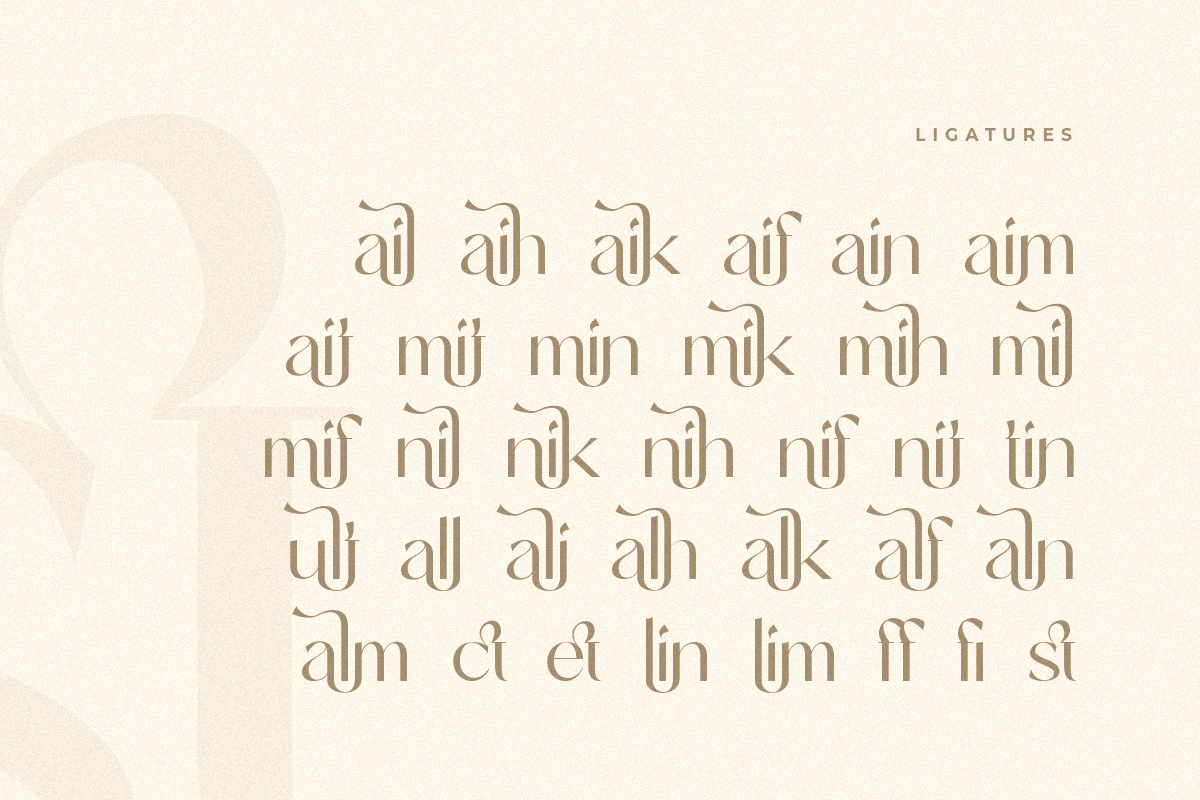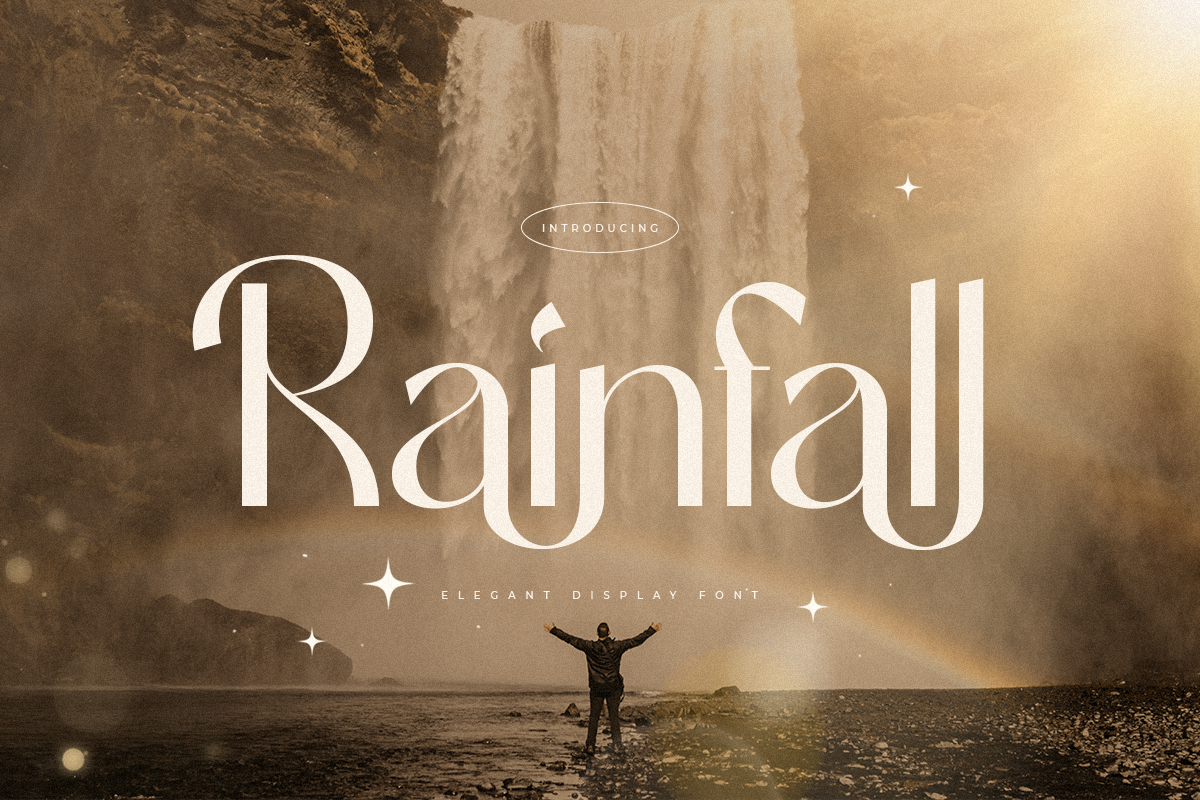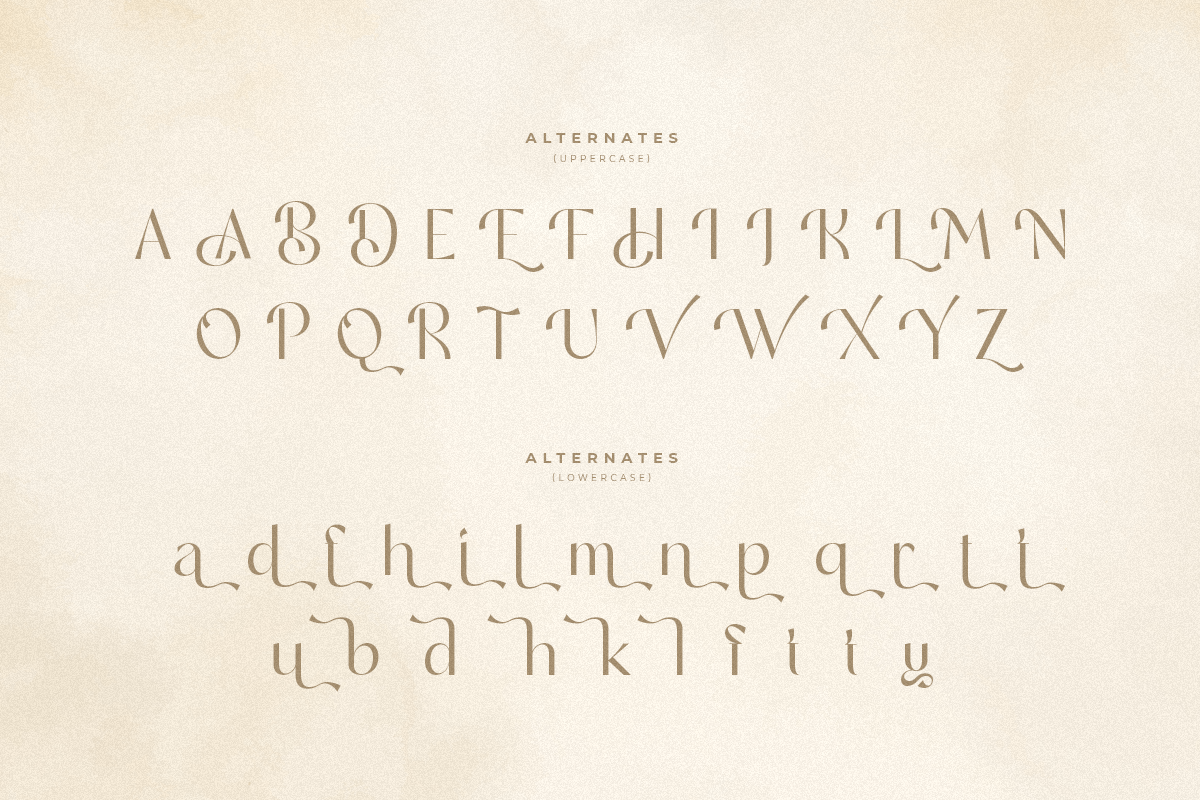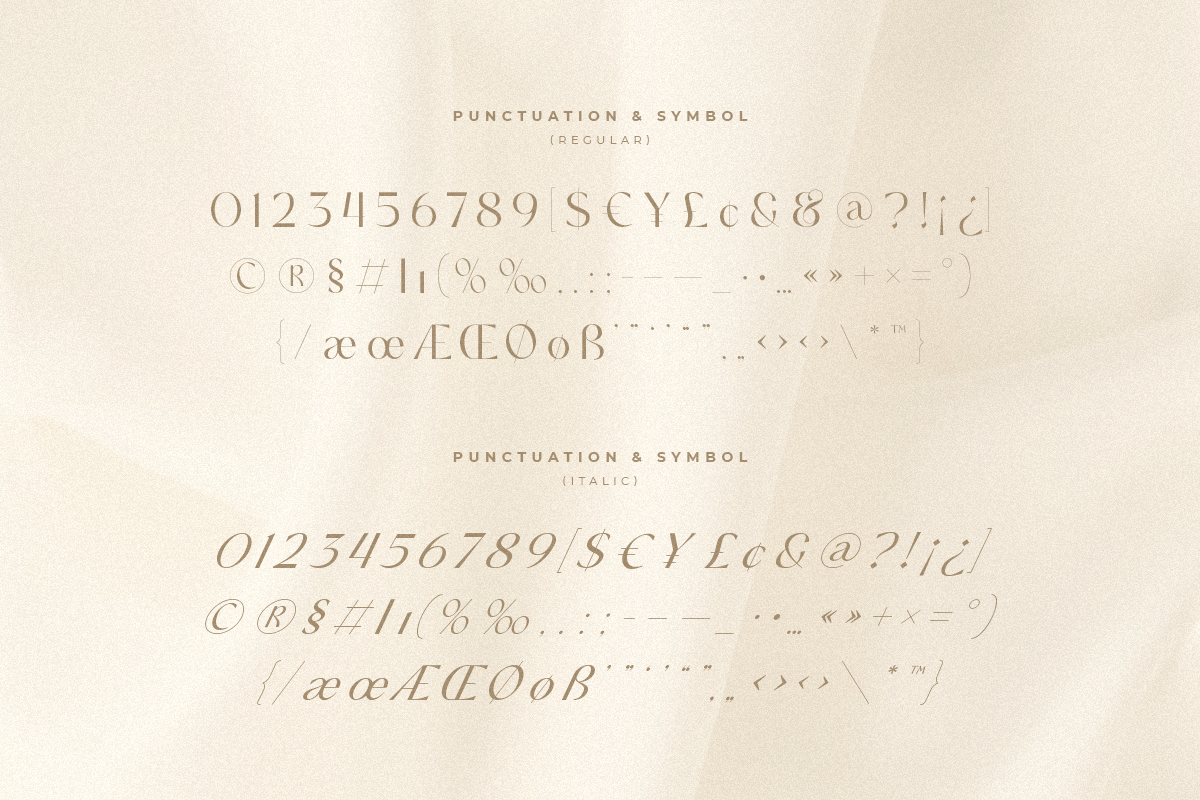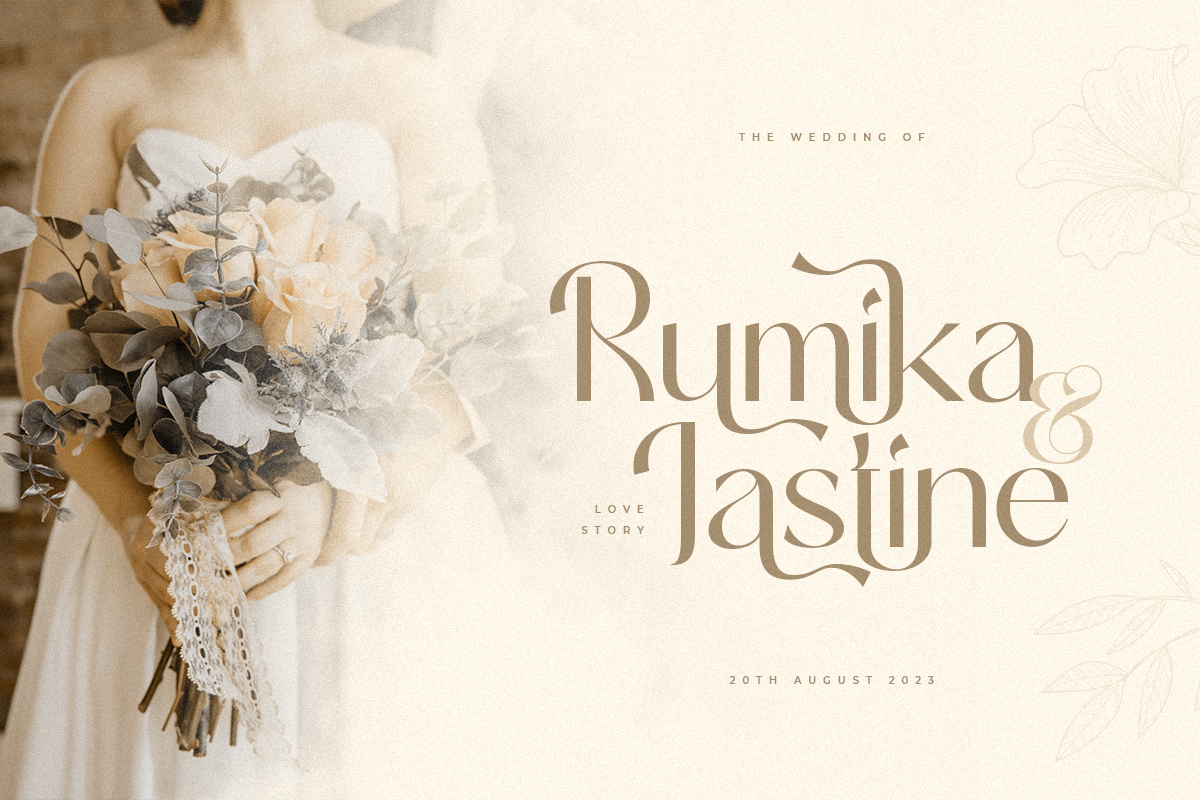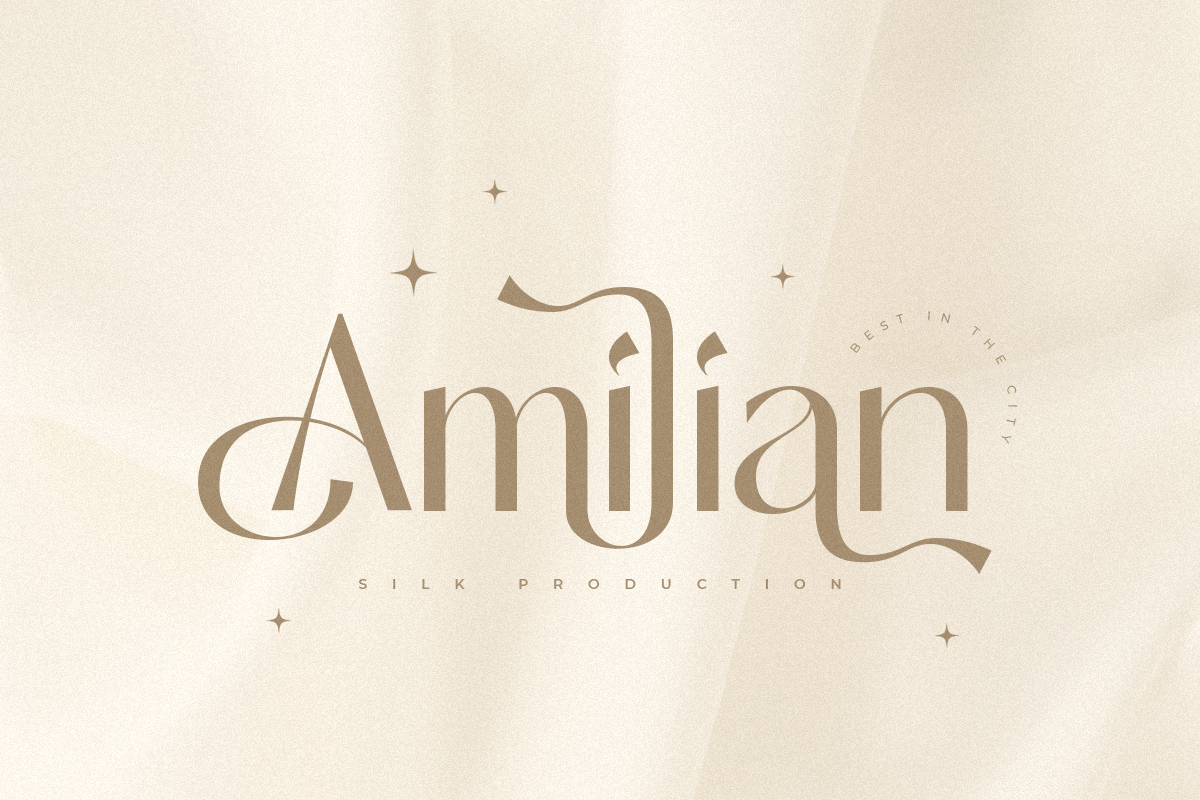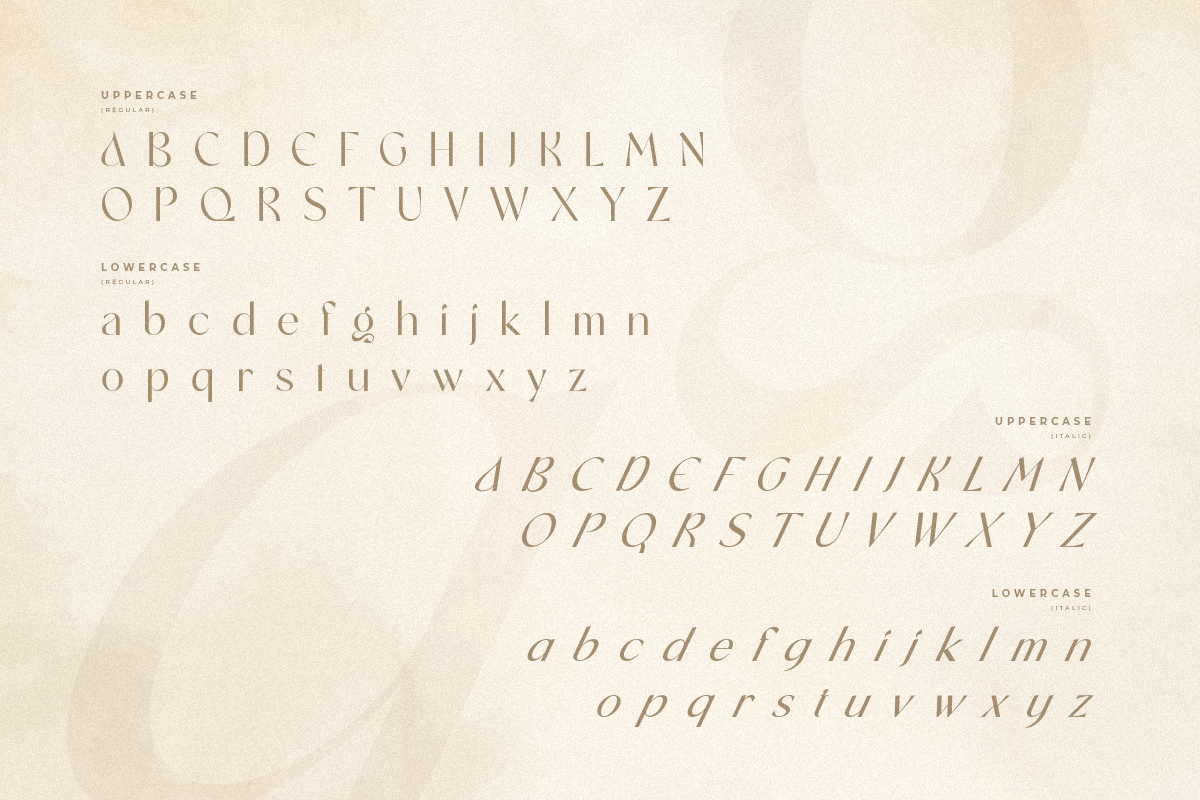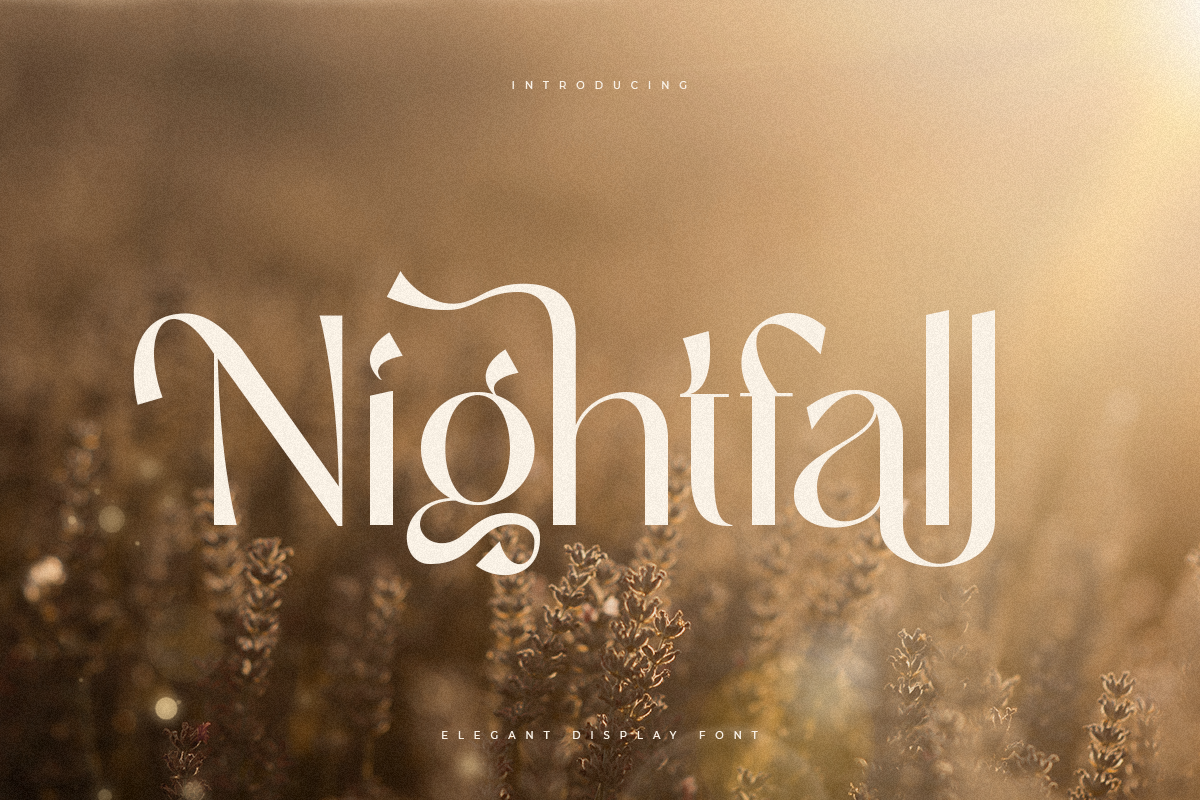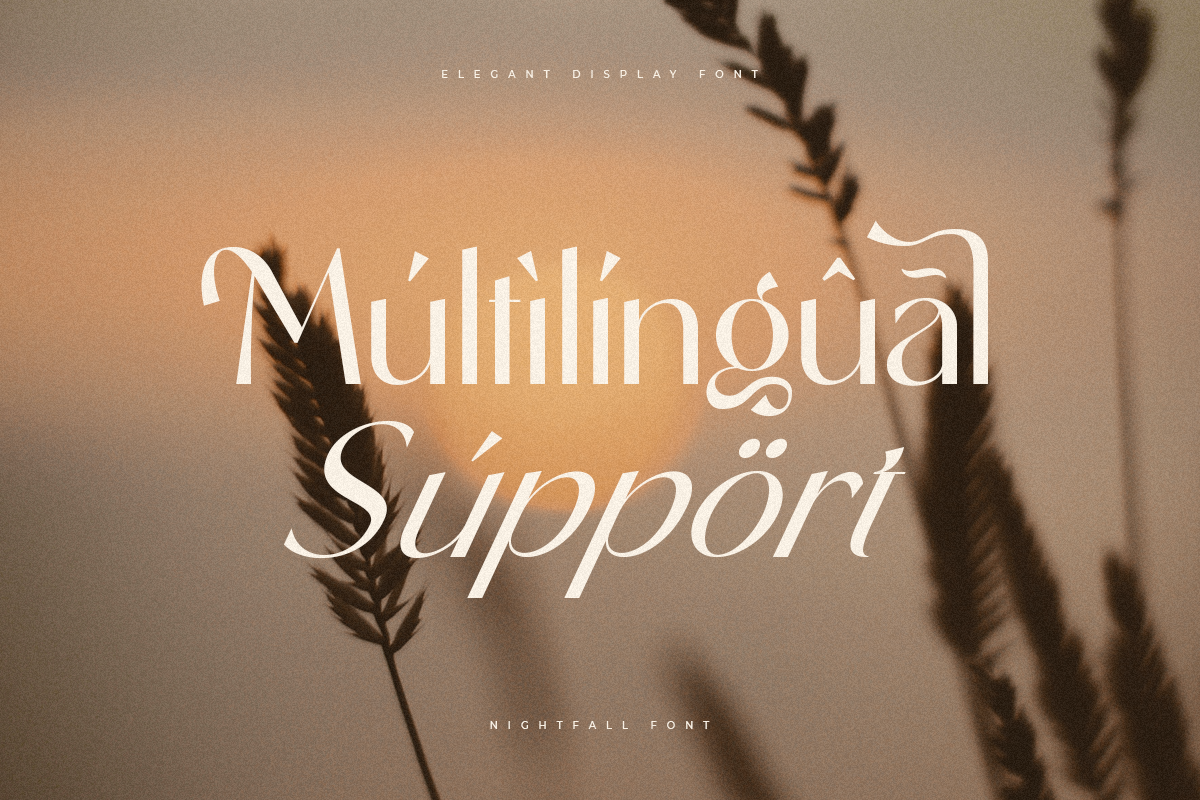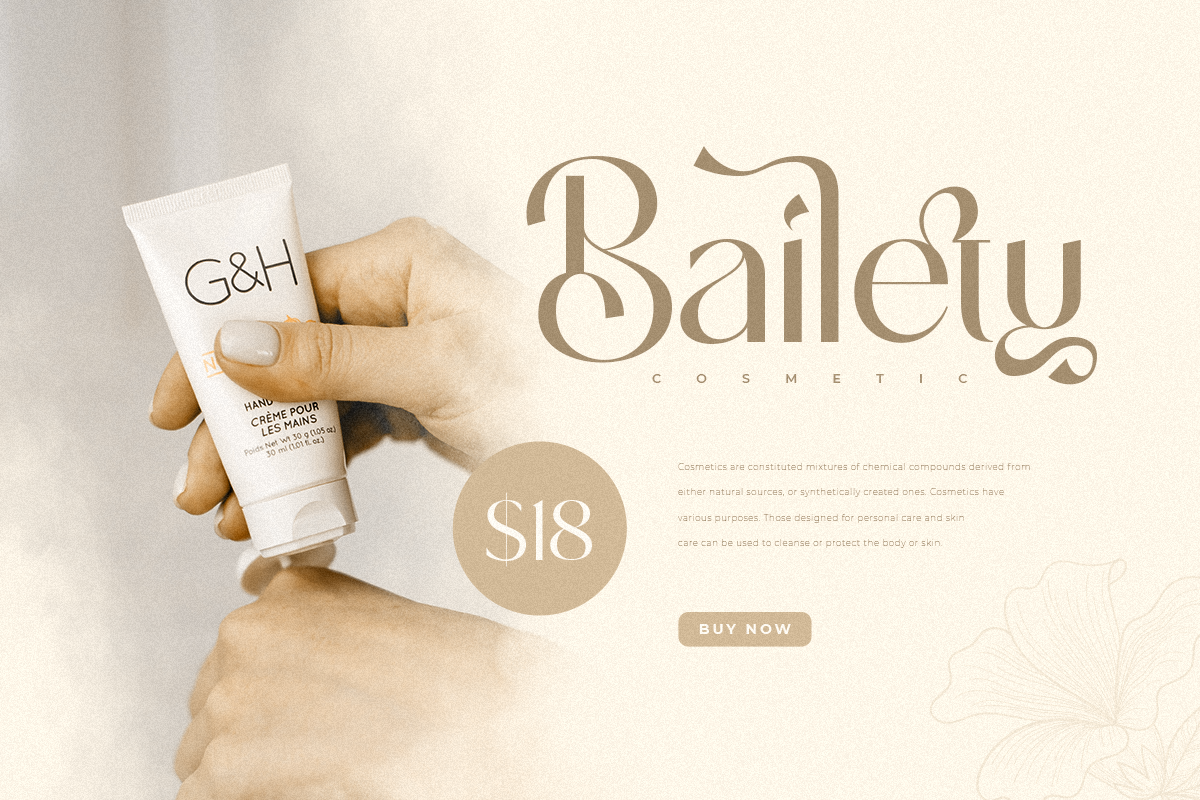
Rainfall is a Modern Elegant Display Font.
In a new generations, we analyze that any designer or brand owner need to make their brand standout. As our focus that analyze any typeface that helps to leverage any logo design to look more modern and unique. We prepared this font with any unique characters to help you create unlimited variations for your creative needs.
Rainfall Modern Elegant Display Font ready with:
- Any options to get creative variations with unique letters
- Ready with Lowercase and Uppercase characters